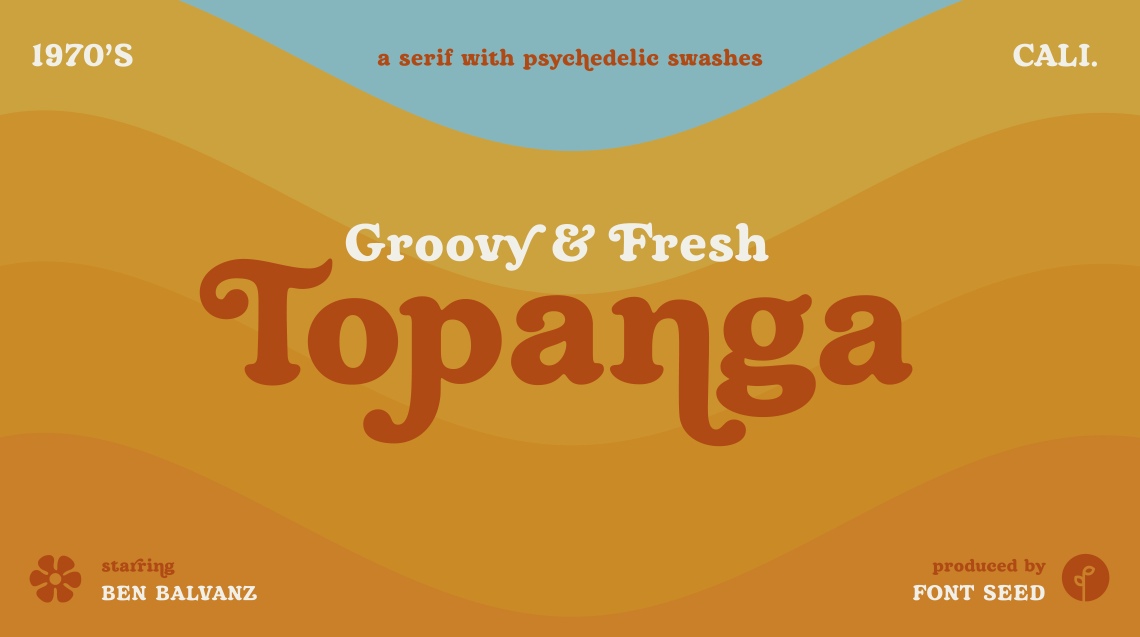
Topanga Font
Topanga Font is perfect for bohemian lifestyle brands, artistic coffee shops, indie music festivals, vintage clothing boutiques, creative co-working spaces, and free-spirited wellness centers. Its relaxed character makes it ideal for organic food markets, yoga studios, artisanal craft stores, music venues, alternative bookshops, and any project requiring authentic creativity with California counterculture spirit and artistic bohemian authenticity.
This font is exciting because it captures the laid-back artistic energy and creative freedom of California's iconic canyon communities while delivering contemporary functionality for modern alternative brands. The effortlessly cool letterforms evoke images of sunset jam sessions, artistic gatherings, and the timeless appeal of creative expression, creating powerful connections that resonate with audiences seeking authentic artistic experiences and alternative lifestyle choices.
The Topanga Font family typically includes Regular, Bold, and handcrafted variations with artistic flourishes, bohemian ornaments, and creative decorative elements that enhance its free-spirited personality. This comprehensive collection enables designers to create authentic brand systems that maintain artistic integrity while providing creative flexibility for various alternative applications and counterculture market positioning strategies.
Whether you're developing identity systems for independent artists, creating promotional materials for alternative festivals, or designing packaging for artisanal lifestyle products, Topanga Font Free Download delivers the creative authenticity and bohemian spirit that connects with artistic communities worldwide. Its authentic presence ensures memorable brand recognition across digital platforms and print materials, making it perfect for websites, mobile applications, and creative campaigns that celebrate artistic freedom, alternative culture, and the enduring appeal of authentic creative expression with contemporary California cool and timeless bohemian charm.